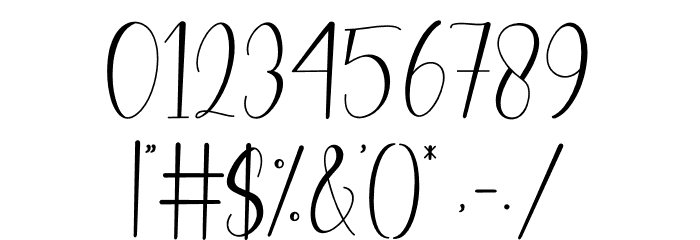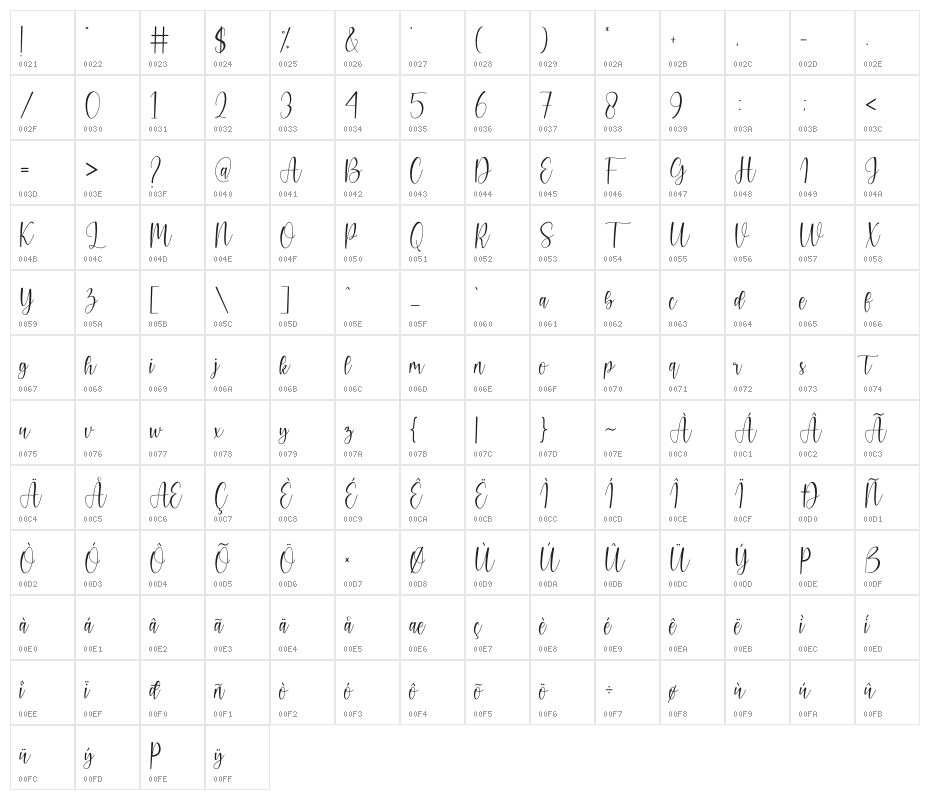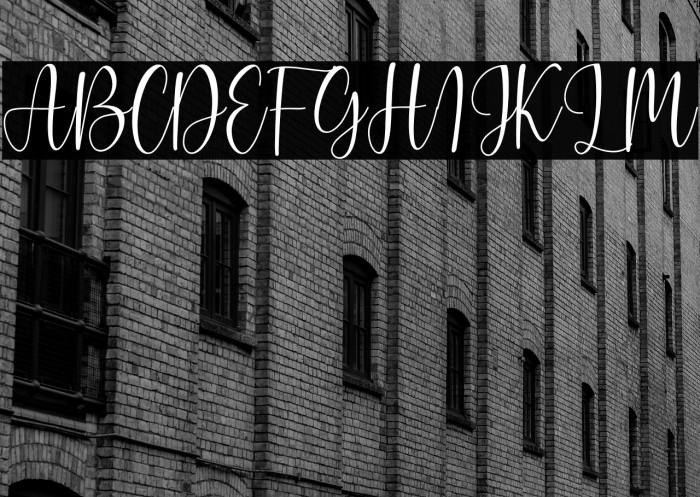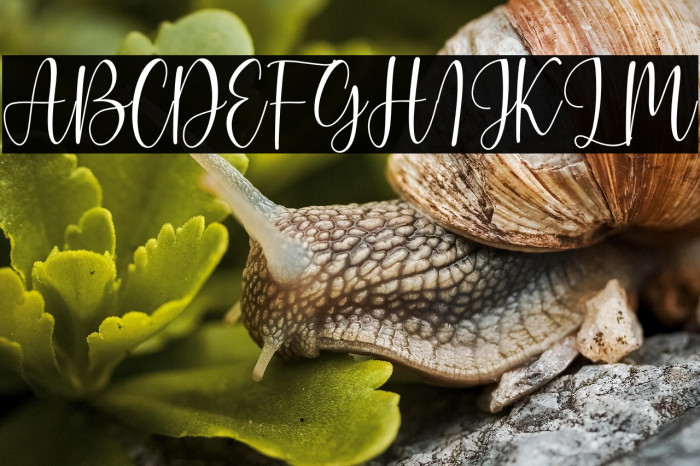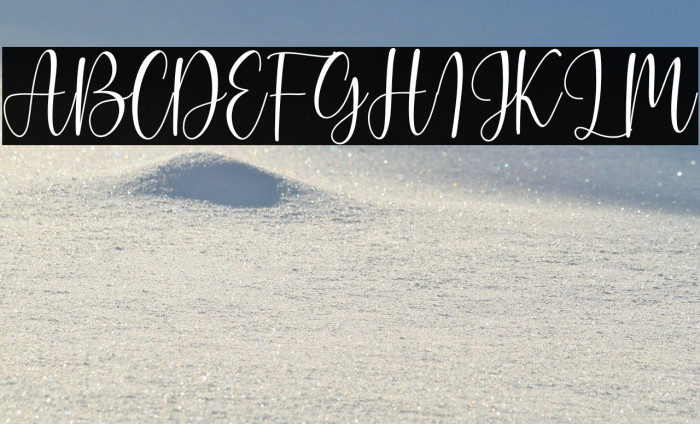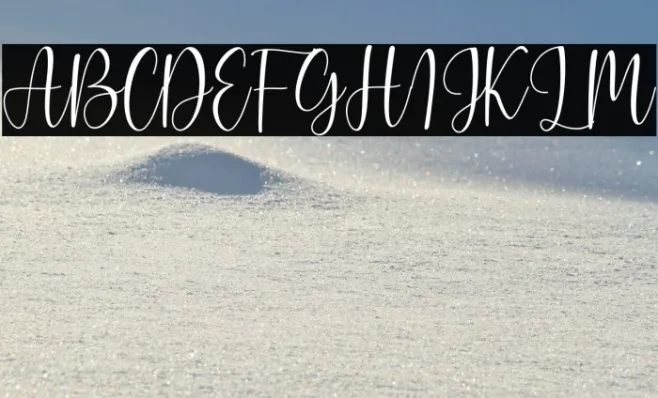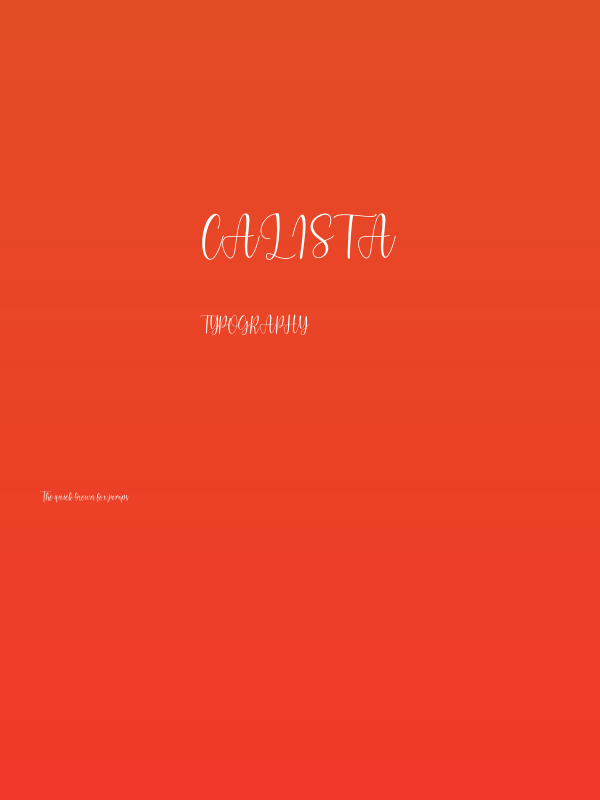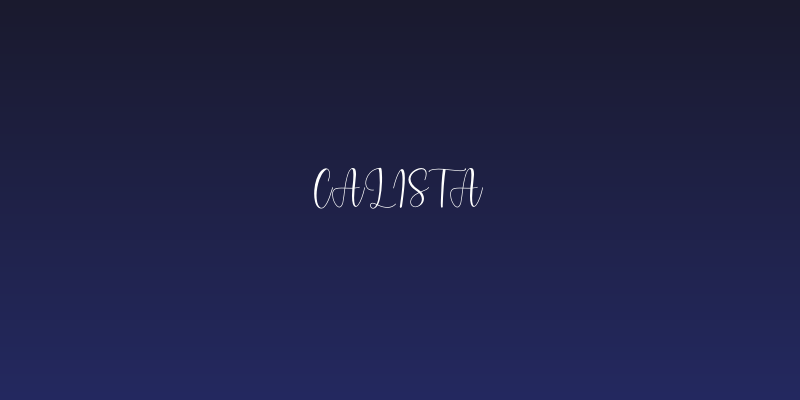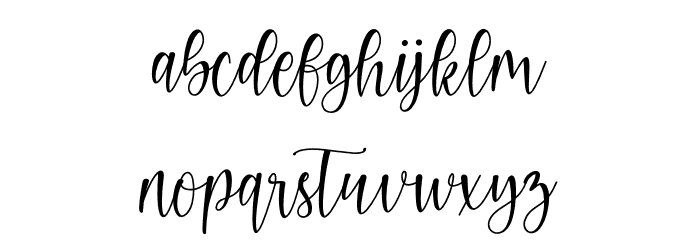
calista Font
calista Description
This font features a flowing, cursive style with elegant loops and swashes, giving it a sophisticated and artistic appearance. The uppercase letters are tall and graceful, while the lowercase letters maintain a consistent flow, enhancing readability despite their decorative nature. The numerals are distinct and align well with the overall style, maintaining the same fluidity. Special characters are creatively integrated, adding to the font's versatility. The strokes vary in thickness, providing a dynamic contrast that adds to its visual appeal.
| Proposed Projects | Ideal for wedding invitations, branding, greeting cards, and any project requiring a touch of elegance and personal flair. |